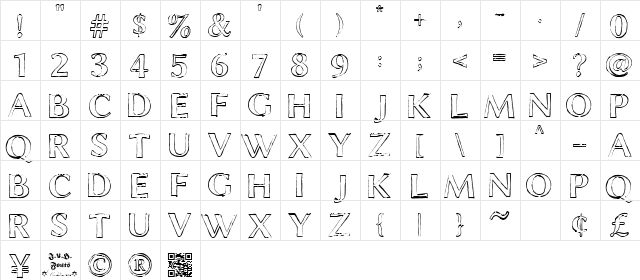
Chalk Line Outline
Design Context for Chalk Line Typeface
Chalk Line brings ornamental detail and strong personality to headlines and identities, where visual impact matters more than quiet functionality.
Font Pairing: Pair with a clean neutral sans-serif for body copy to let Chalk Line's character lead without overwhelming the composition.
Pro Tip: Treat Chalk Line as the centrepiece of your typographic hierarchy. One strong heading set in a decorative face can carry an entire layout.